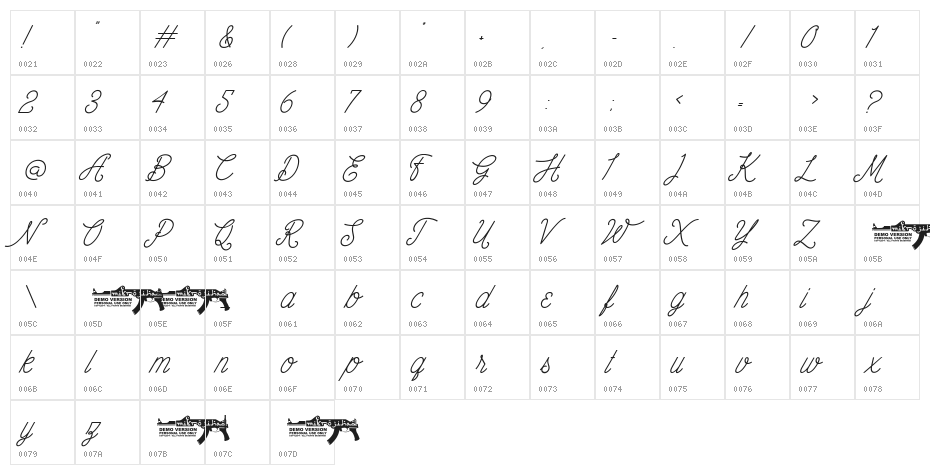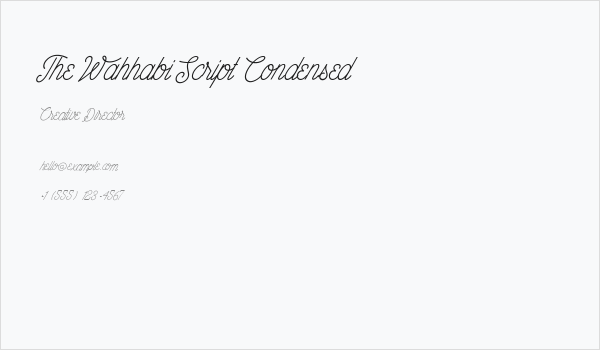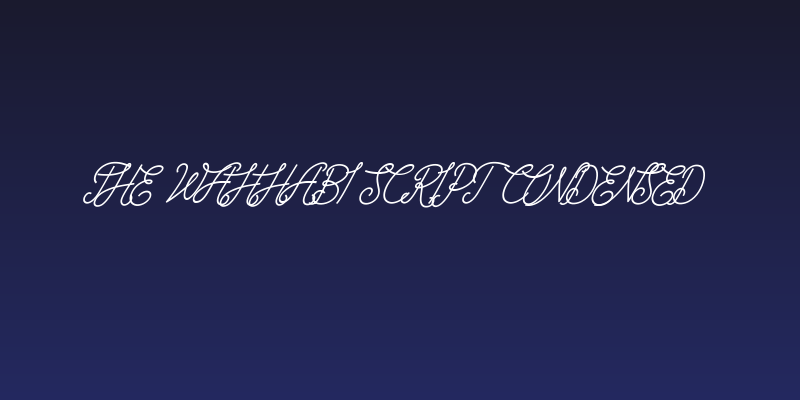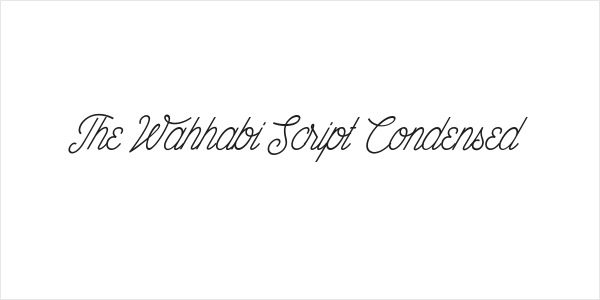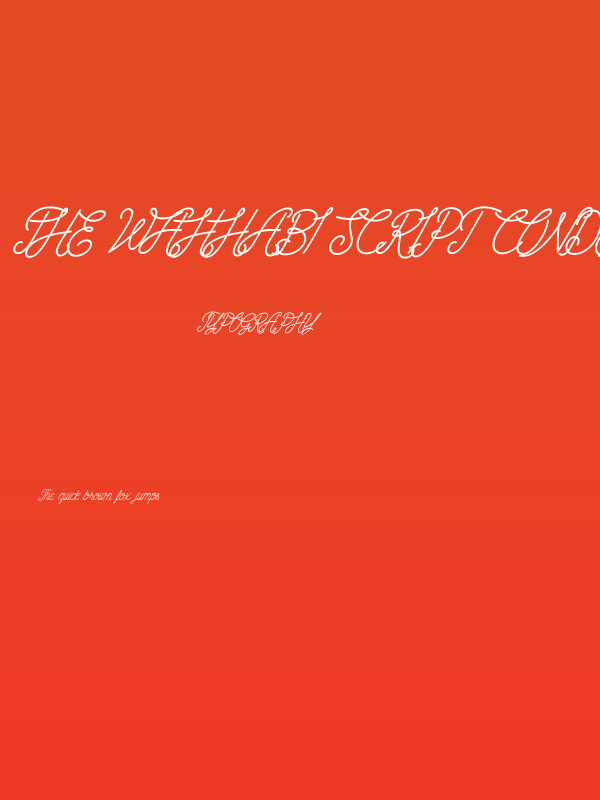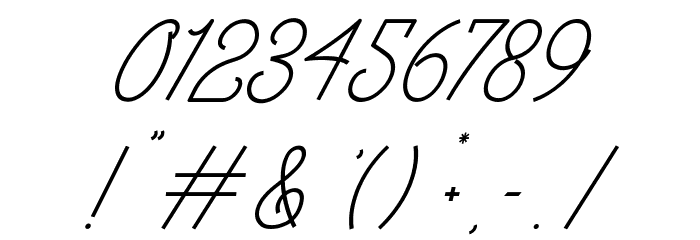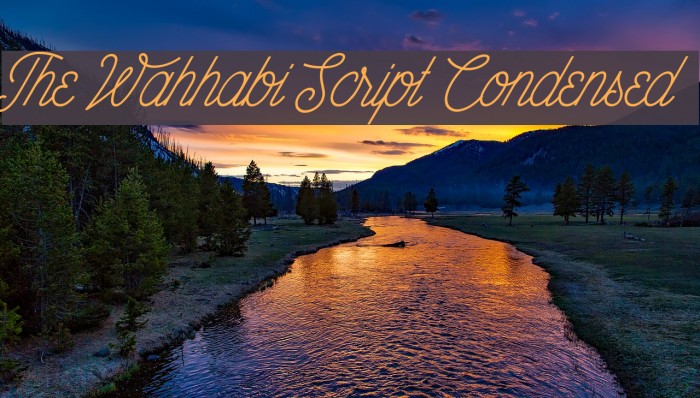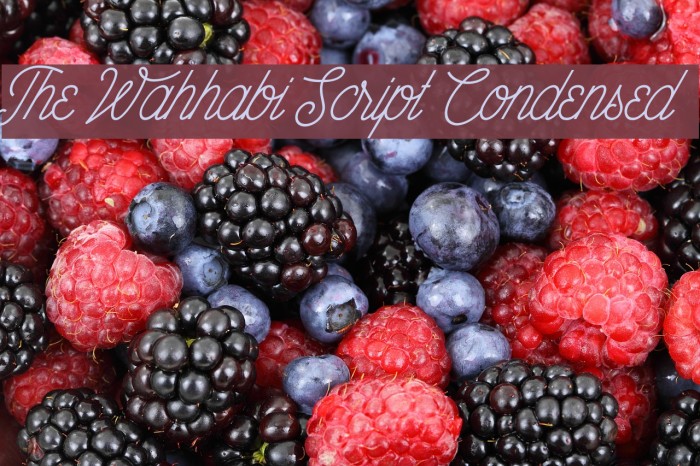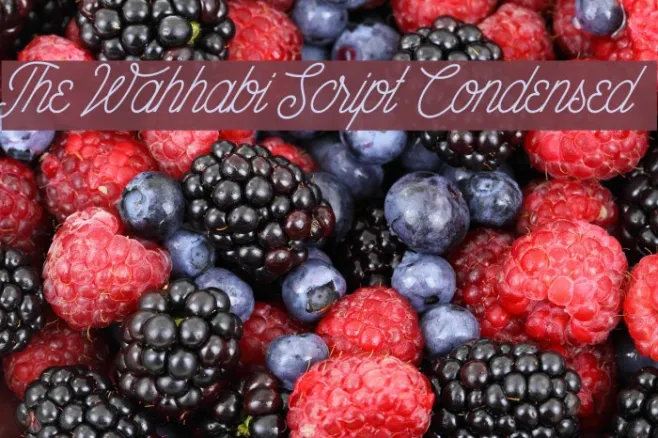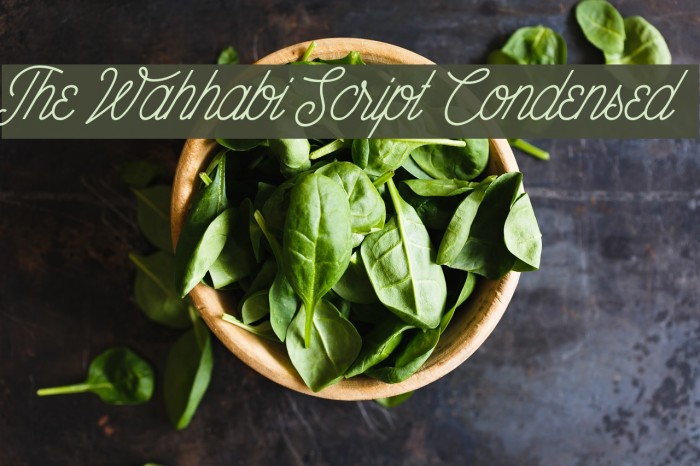
The Wahhabi Script Condensed Font
The Wahhabi Script Condensed Description
This elegant script font features a condensed style with a flowing, cursive design. The characters are interconnected, creating a seamless and sophisticated appearance. The uppercase letters are ornate and decorative, while the lowercase letters maintain a consistent flow. The numerals and special characters are designed to match the script's fluidity, adding to its cohesive look. This font is ideal for projects that require a touch of elegance and sophistication, such as invitations, branding, and decorative text. Its condensed nature allows for efficient use of space without sacrificing style.
| Use Case | Headlines, Decorative text, Invitations |
| Proposed Projects | Ideal for wedding invitations, elegant branding, decorative headings, and sophisticated logo designs. |